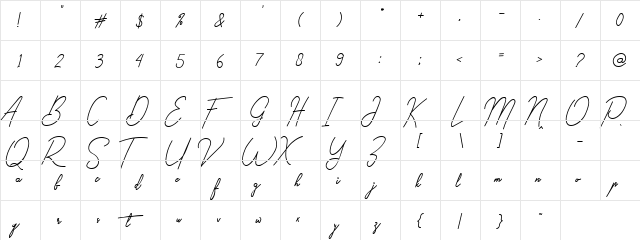
Gilberta Dafont Regular
| Designer | jozgandoz |
Design Context for Gilberta Dafont Typeface
Gilberta Dafont is a composed and adaptable typeface that performs quietly and consistently across a wide range of design contexts.